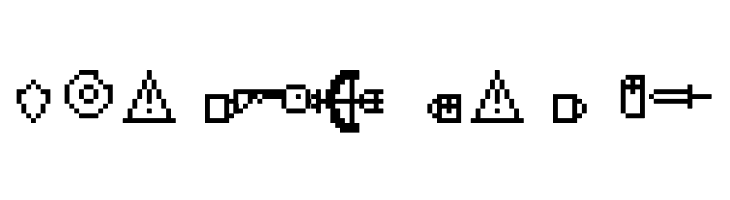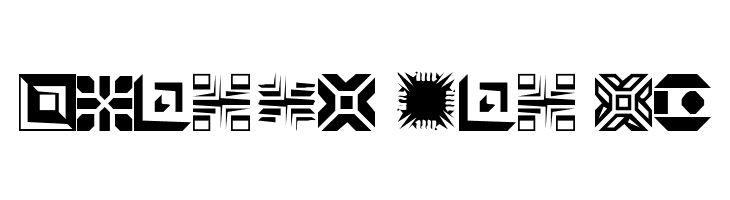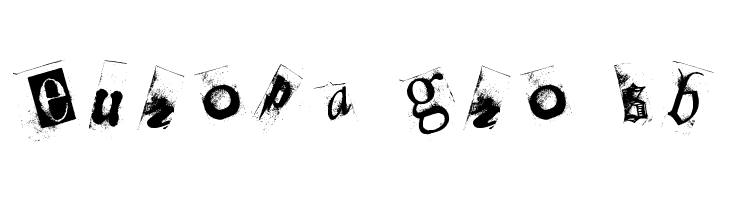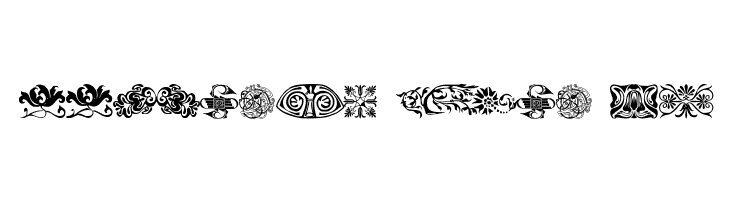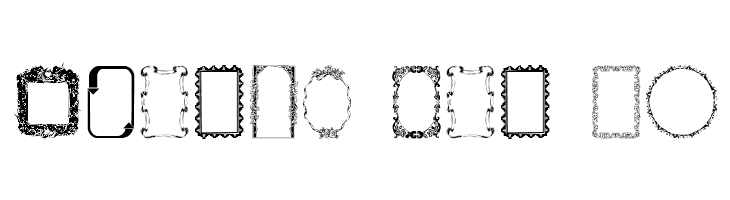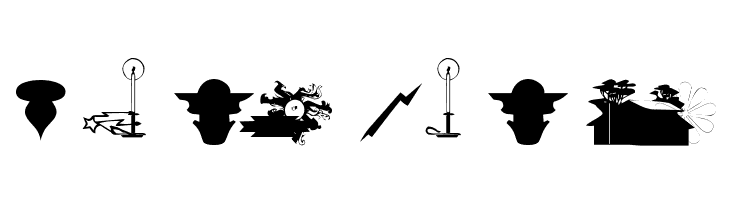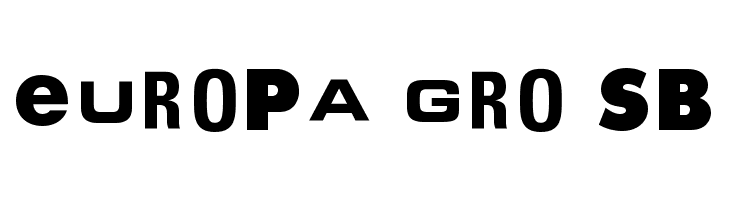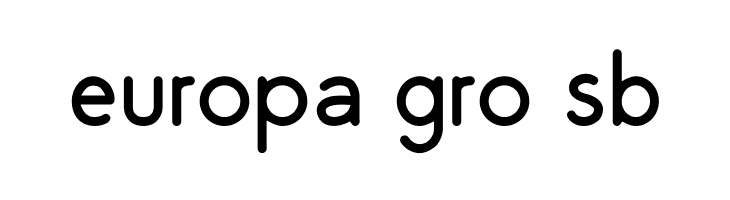
Pixel-art symbol font with diverse icons and a retro gaming feel.
( Alan Carr )
A versatile collection of bold, geometric symbols with high contrast.
( Cioroianu Stefan Cristian )
A decorative and eclectic font with a collage-like mix of styles and embellishments.
( CloutierFontes - www.cloutierfontes.ca )
Ornamental fleur-de-lys symbol font with diverse styles.
( Cyberbuny Creations )
Ornamental dingbat font with diverse decorative motifs and frames.
( Dingbat Crazy - dingbatcrazy.fateback.com/ )
A diverse set of decorative and plain frame glyphs.
( Dingbat Crazy - dingbatcrazy.fateback.com/ )
Eclectic dingbat font with diverse symbols and decorative motifs.
( Footnote Fonts )
A playful and eclectic font with diverse character styles and bold numbers.
( Frank Hemmekam - www.frankthetank.info/ )
A modern, rounded font with clean lines and consistent stroke width.
( I Shot the Serif - www.squaregear.net/fonts/ )
A whimsical dingbat font with diverse pictograms and stick figures.